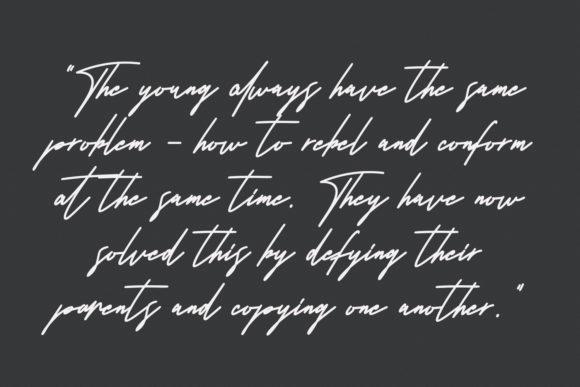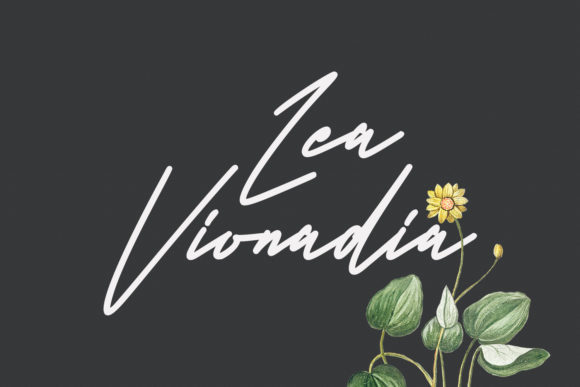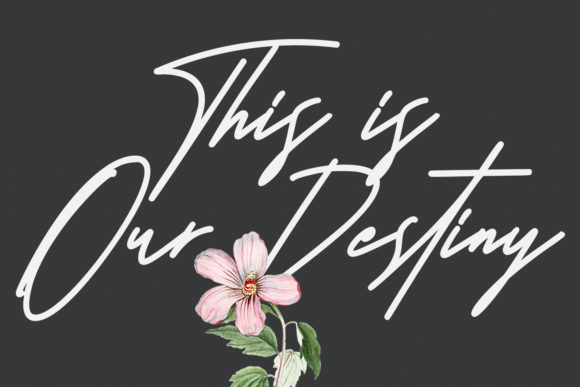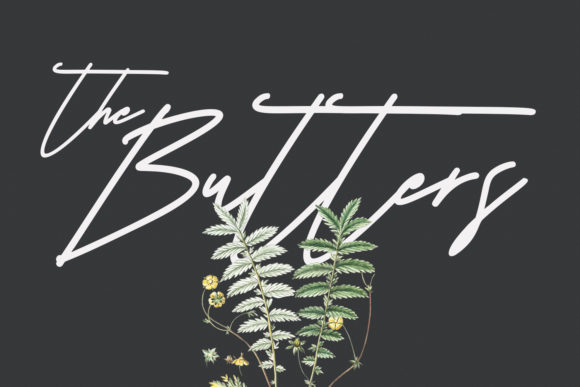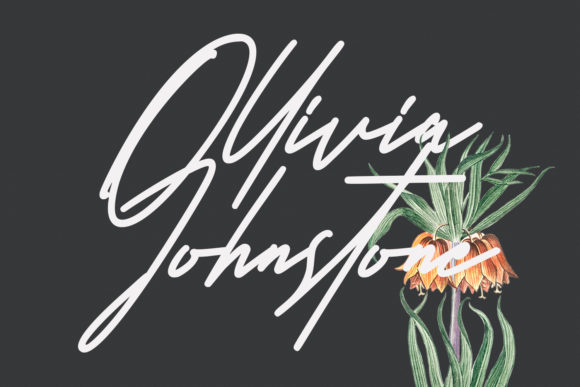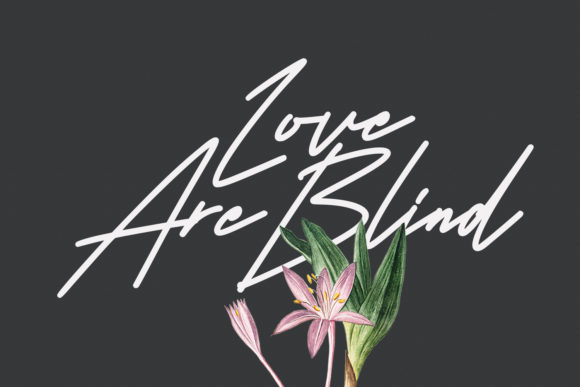
The Perfect Brushstroke: Unveiling the Beauty of Architaris Signature Font
There’s nothing quite like the feeling of putting pen to paper and watching your ideas come to life. The scratch of the nib, the flow of the ink, and the freedom to create something truly unique – it’s a sensation that never gets old. As designers, we’re constantly seeking ways to add that special something to our work, and that’s where the Architaris Signature Font comes in.
This elegant handwritten script font is more than just a pretty face – it’s a tool that can elevate your designs and leave a lasting impression. With its delicate strokes, fun characters, ligatures, and alternates, the Architaris Signature Font is a valuable addition to any designer’s toolkit.
Architaris Signature Font Key Features
- Font Size: 1,000+ glyphs, including letters, numbers, symbols, and punctuation
- Unique Characteristics: Hand-drawn, cursive, and elegant script style with a touch of sophistication
- Language Support: Multilingual support for Latin-based languages, including English, Spanish, French, and more
- Font Weight: Regular, Bold, and Italic weights available for versatility
Architaris Signature Font Review
Overall, I’m quite impressed with the Architaris Signature Font! ✨ The elegant, handwritten style is perfect for adding a touch of sophistication to various design projects. The font is versatile and suitable for both personal and professional use.
Some of the strengths of this font include:
- ✨ Beautiful, cursive style that’s perfect for titles, headings, and quotes
- ✨ High-quality, smooth lines that make it easy to read
- ✨ Suitable for a wide range of design projects, from invitations to posters and more
- ⚠️ Limited character set, which may not be suitable for extensive text-based projects
- ⚠️ May not be as readable at smaller font sizes, due to the cursive style
- ⚠️ Some characters may not render correctly in certain software or platforms
Overall, I’d highly recommend the Architaris Signature Font for designers looking to add a touch of elegance and sophistication to their projects. Just be aware of its limitations and use it accordingly.
- Use the font in combination with a bold or italic font for contrast and emphasis.
- Use the font in headings and titles to create a cohesive design.
The Architaris Signature Font is perfect for:
- Business cards and letterhead
- Event signage and banners
- Personal branding and social media graphics
Alternatives to Architaris Signature Font for Designers
Great Vibes is a beautiful, elegant script font perfect for creating a sophisticated and luxurious feel. It’s ideal for use in branding, invitations, and other high-end designs. When to use: luxury brands, wedding invitations, and special occasion designs. Compared to Architaris Signature Font, Great Vibes has a more refined and polished look, making it suitable for more formal designs.
Carolyna Pro is a modern script font with a touch of elegance and sophistication. It’s perfect for creating a unique and eye-catching design. When to use: fashion brands, lifestyle magazines, and advertising campaigns. Compared to Architaris Signature Font, Carolyna Pro has a more contemporary feel and a wider range of ligatures, making it suitable for a variety of design projects.
Playfair Display is a luxurious, high-end font perfect for creating a sense of opulence and sophistication. It’s ideal for use in branding, packaging, and other high-end designs. When to use: luxury brands, high-end fashion, and special occasion designs. Compared to Architaris Signature Font, Playfair Display has a more dramatic and elegant look, making it suitable for more formal and luxurious designs.
Alex Brush is a beautiful, elegant script font perfect for creating a warm and inviting feel. It’s ideal for use in branding, packaging, and other design projects where a personal touch is needed. When to use: craft brands, food packaging, and lifestyle designs. Compared to Architaris Signature Font, Alex Brush has a more rustic and handmade look, making it suitable for more casual and personal design projects.